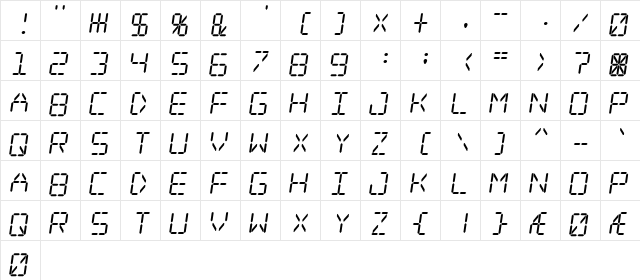
Digital dream Skew Regular
Design Context for Digital dream Skew Typeface
Digital dream Skew channels digital-age aesthetics through its sharp, structured letterforms — ideal for brands that want to signal innovation.